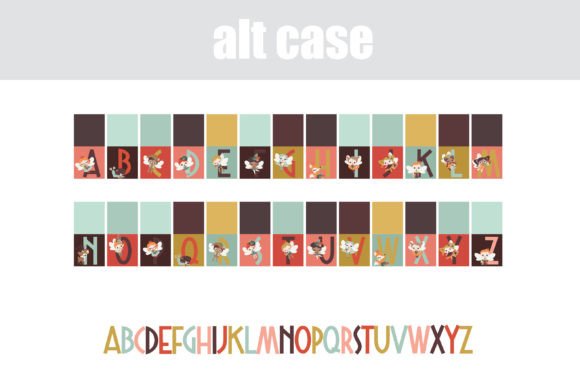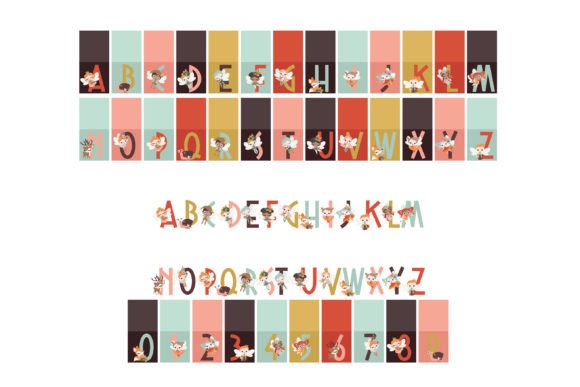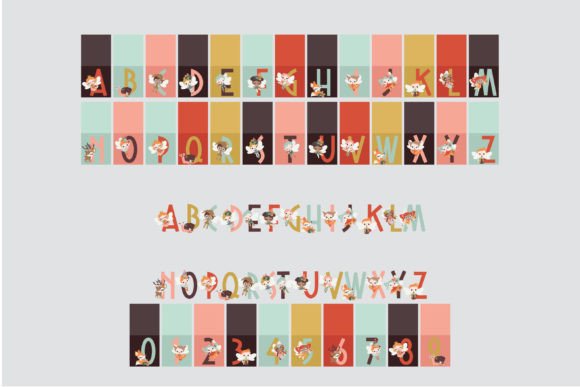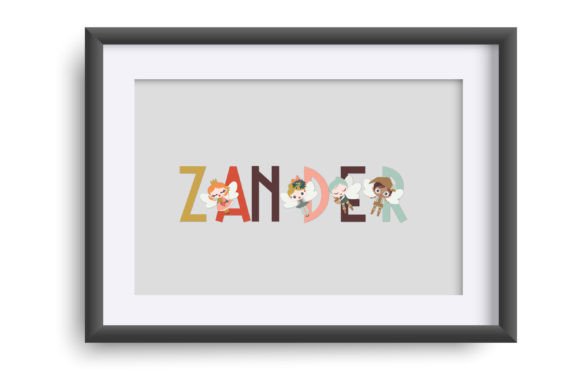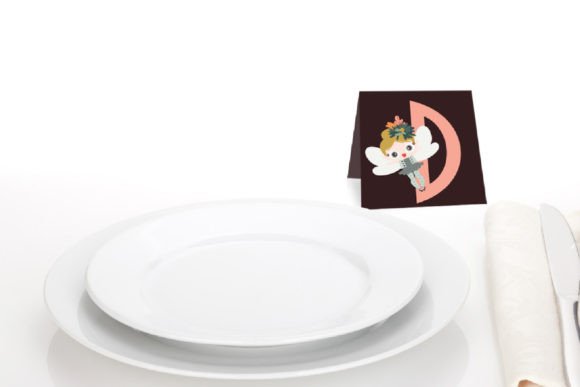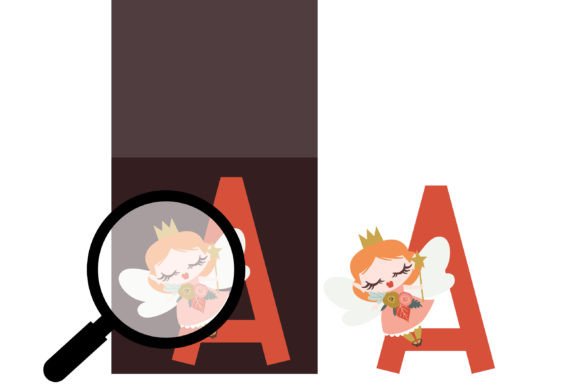
Introducing Fall Fairies Cards Font: Add a Touch of Whimsy to Your Designs
Are you looking for a unique and playful way to add some personality to your designs? Look no further than the Fall Fairies Cards Font! This full-color font features adorable fall fairies on cards that you can cut and fold in half, perfect for crafters and designers alike. In this article, we’ll dive into the details of this exciting font and explore how you can use it to take your designs to the next level.
What is Fall Fairies Cards Font?
Fall Fairies Cards Font is a one-of-a-kind, full-color font that features fall fairies on cards. The font includes uppercase letters with cards, while the lowercase letters are without cards. But that’s not all – this font also comes with an alternate version of each letter in a different color, which can be accessed through your system character map. This means you have even more options for customizing your designs!
The Benefits of Full-Color SVG Fonts
Full-color SVG fonts like Fall Fairies Cards Font offer a world of creative possibilities. With a full range of colors and styles to choose from, you can add a touch of personality to your designs and make them truly stand out. Whether you’re a crafter looking to create unique cards and gifts or a designer seeking to add some whimsy to your projects, full-color SVG fonts are the perfect solution.
So, what can you create with Fall Fairies Cards Font? The possibilities are endless! Here are a few ideas to get you started:
- Create custom cards for special occasions, such as birthdays, holidays, or thank-you notes
- Design unique gifts, such as personalized mugs, tote bags, or phone cases
- Add a touch of personality to your party decorations, invitations, or favors
- Use the font to create stunning social media graphics or blog posts
Tips and Tricks for Getting the Most Out of Fall Fairies Cards Font
To get the most out of Fall Fairies Cards Font, here are a few tips and tricks to keep in mind:
- Experiment with different colors and styles to find the perfect combination for your design
- Use the alternate version of each letter to add some extra visual interest
- Don’t be afraid to get creative and try out new and unusual design ideas
- Take advantage of the font’s compatibility with popular design programs to streamline your workflow
Fall Fairies Cards Font is a unique and exciting addition to any designer’s toolkit. With its full-color, SVG format and adorable fall fairy designs, this font is sure to add a touch of whimsy and personality to your projects. Whether you’re a crafter, designer, or simply someone who loves to create, Fall Fairies Cards Font is a must-have for anyone looking to take their designs to the next level.